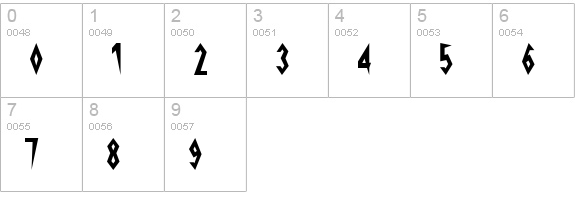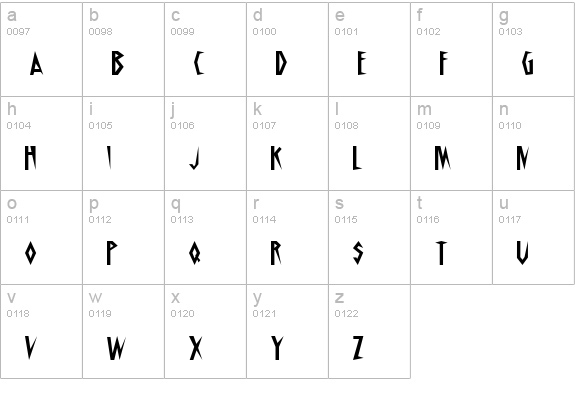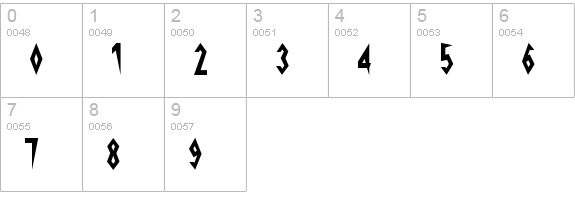
Schrill AOE Font Details
Introducing Schrill AOE font, a stunning typeface that is sure to captivate and inspire. With its bold and striking design, Schrill AOE is perfect for making a statement in any project or design. This font exudes a sense of power and energy, with each letter carefully crafted to convey a sense of strength and determination. Its sharp angles and modern aesthetic make it ideal for logos, headlines, and branding projects that require a strong and impactful presence. But what truly sets Schrill AOE font apart is that it is not only visually stunning, but also freely available to download. Yes, you read that right - this incredible font can be yours at no cost. Thanks to FontsMarket.com, you can easily access and download this remarkable font, allowing you to elevate your designs without breaking the bank. Whether you're a professional designer looking for a versatile and eye-catching font, or a creative enthusiast seeking to add a touch of uniqueness to your personal projects, Schrill AOE font is the perfect choice. Its versatility and powerful design will ensure that your work stands out from the crowd and leaves a lasting impression. So why wait? Visit FontsMarket.com today and discover the endless possibilities that Schrill AOE font has to offer. Download this incredible font for free and unlock a world of creativity and design excellence. Don't miss out on this opportunity to enhance your projects and take your designs to new heights.